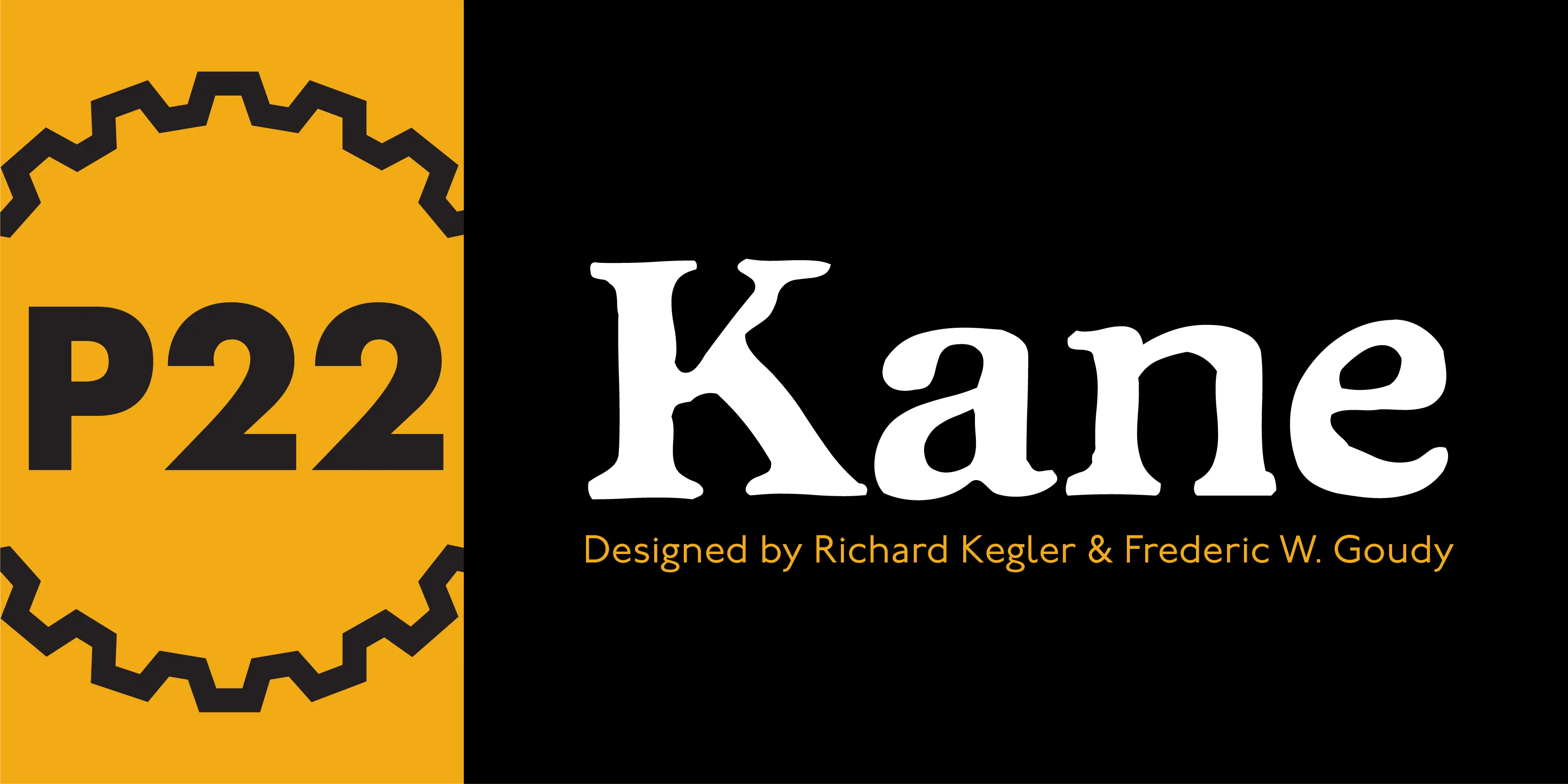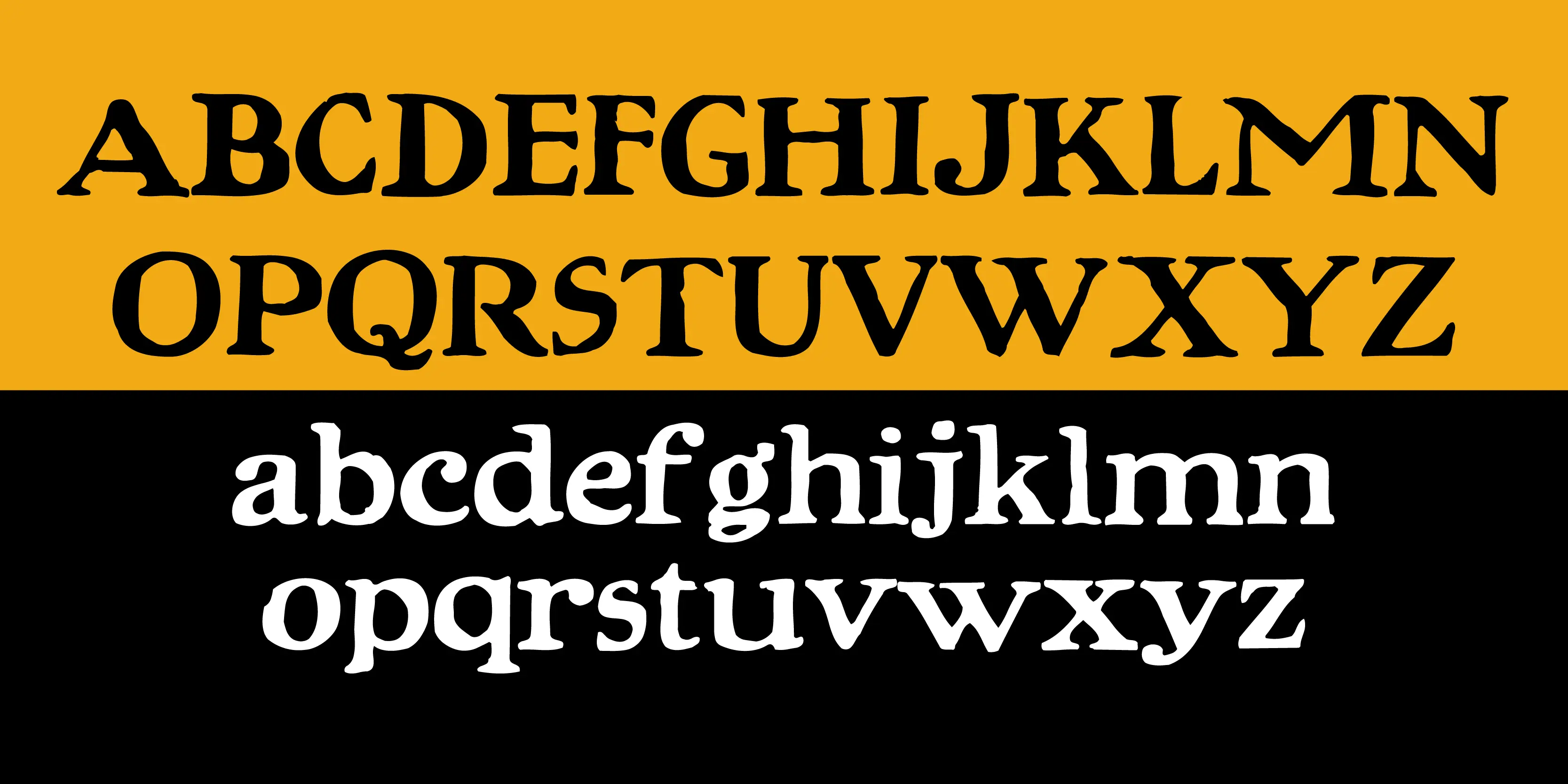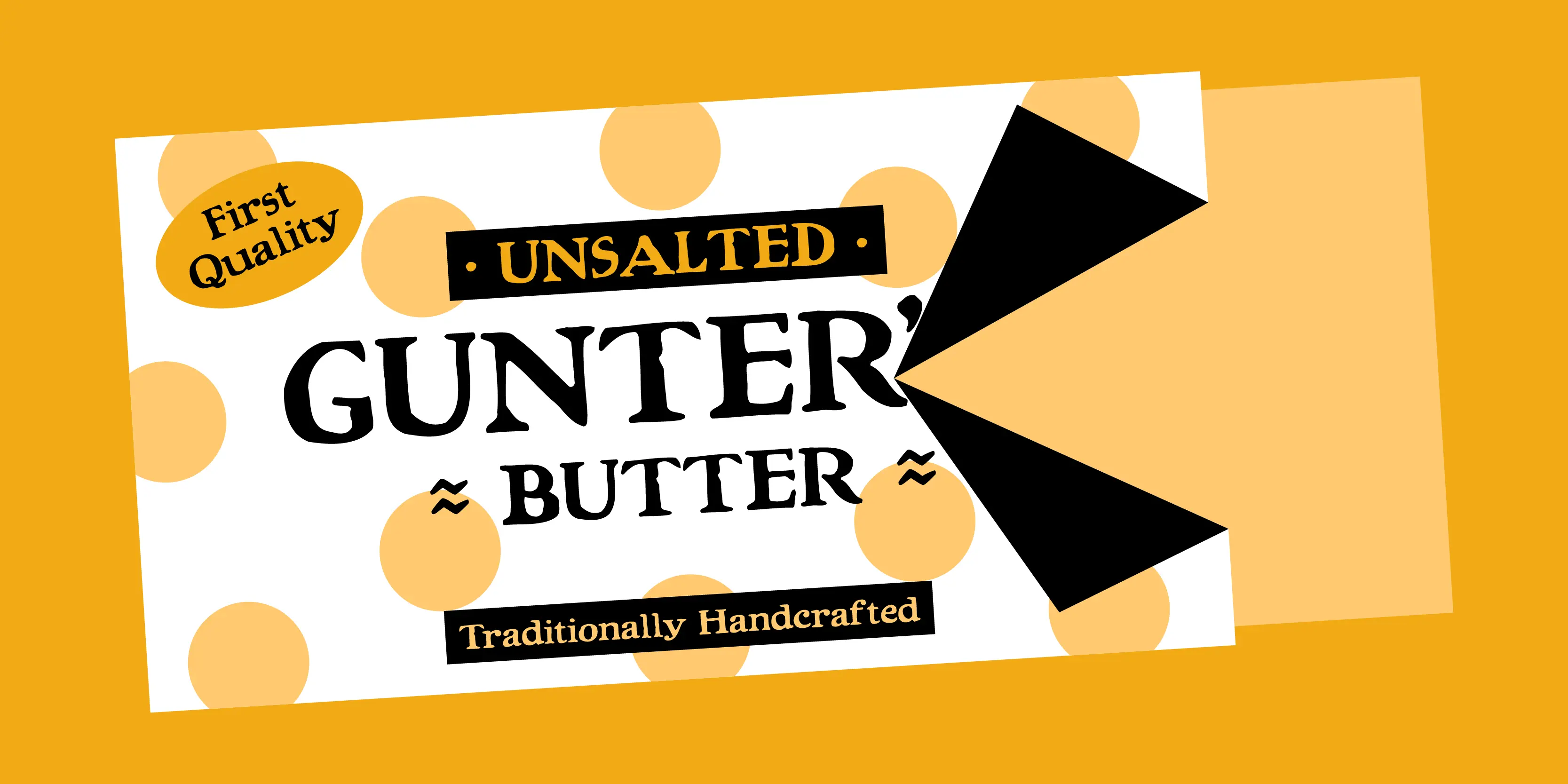
Kane Font
Kane
Inspired by the Inland Type Foundry’s 1901 design “Hearst,” (which was a unauthorized copy of a type design by Frederic Goudy… The full story behind this font and it’s naming can be found here), this rustic font makes an excellent companion to P22 Arts and Crafts Set.